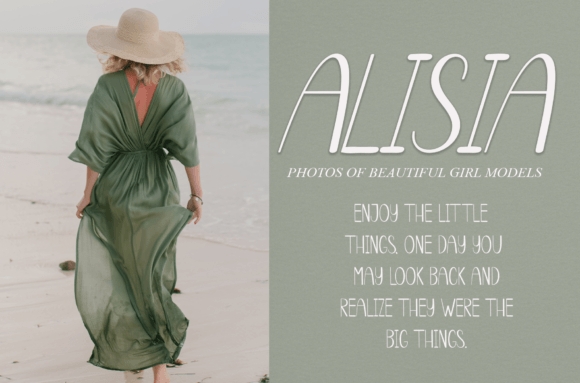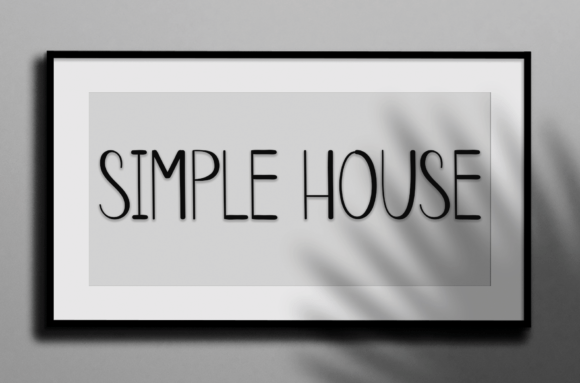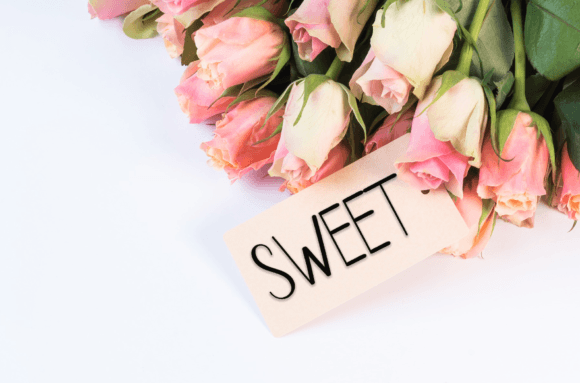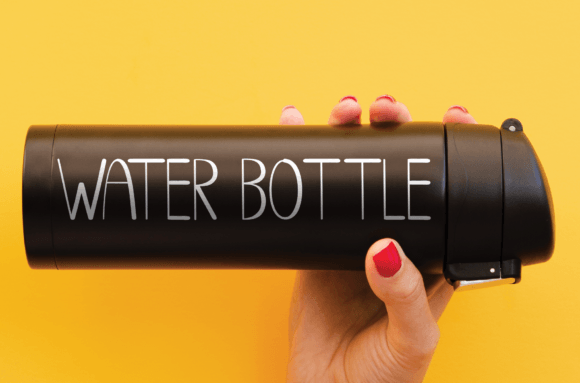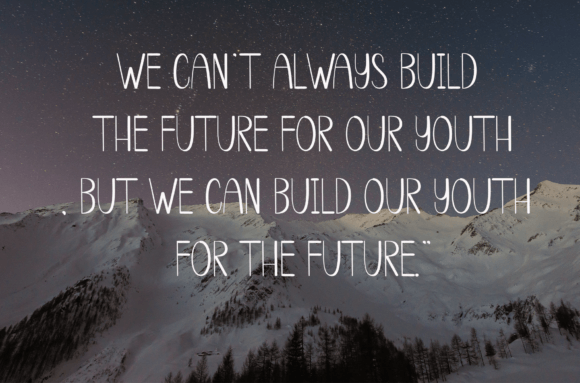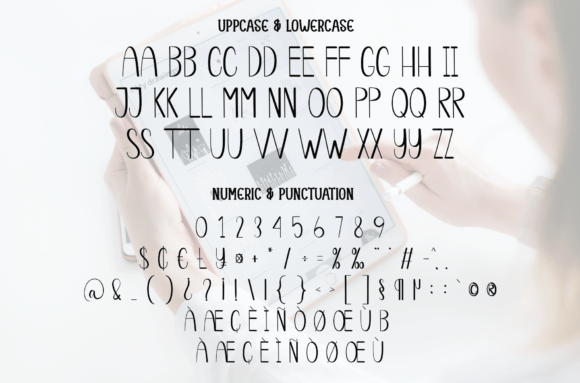
Introduction to Display History Font
Display History is a sweet and friendly handwritten display font.
Cute and fun, this font is ideal for writing wedding invitations, cards, or any other design that might need a fun touch .